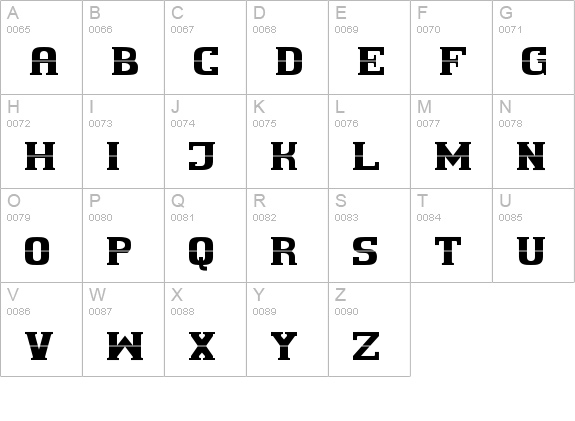
cherif Font Details
Cherif font is a striking and elegant typeface that exudes sophistication and modernity. Its clean lines and stylish curves make it perfect for a wide range of design projects, including logos, branding, headlines, and more. With its versatile nature, Cherif font can be used for both formal and informal designs, adding a touch of class to any layout. One of the most attractive features of Cherif font is that it is available for free. You read that right – this stunning typeface can be freely downloaded at FontsMarket.com. This means that designers and creatives can access this exceptional font without having to pay a penny. This is a fantastic opportunity to enhance your design arsenal with a high-quality font that will make your projects stand out from the crowd. Cherif font offers a wide range of characters, including uppercase and lowercase letters, numbers, and punctuation marks. Its versatility is further enhanced by its multiple weights, allowing you to experiment and find the perfect look for your design. Whether you're aiming for a bold and impactful statement or a more subtle and refined aesthetic, Cherif font has got you covered. The legibility of Cherif font is exceptional, making it suitable for both print and digital applications. Its well-defined letterforms ensure that your message is clear and easily readable, even at smaller sizes. This is particularly advantageous for projects such as brochures, websites, and social media graphics, where readability is key. In conclusion, Cherif font is a must-have for designers who are looking to add a touch of elegance and sophistication to their projects. Its free availability makes it a valuable asset that should not be overlooked. Download Cherif font today at FontsMarket.com and elevate your designs to new heights.